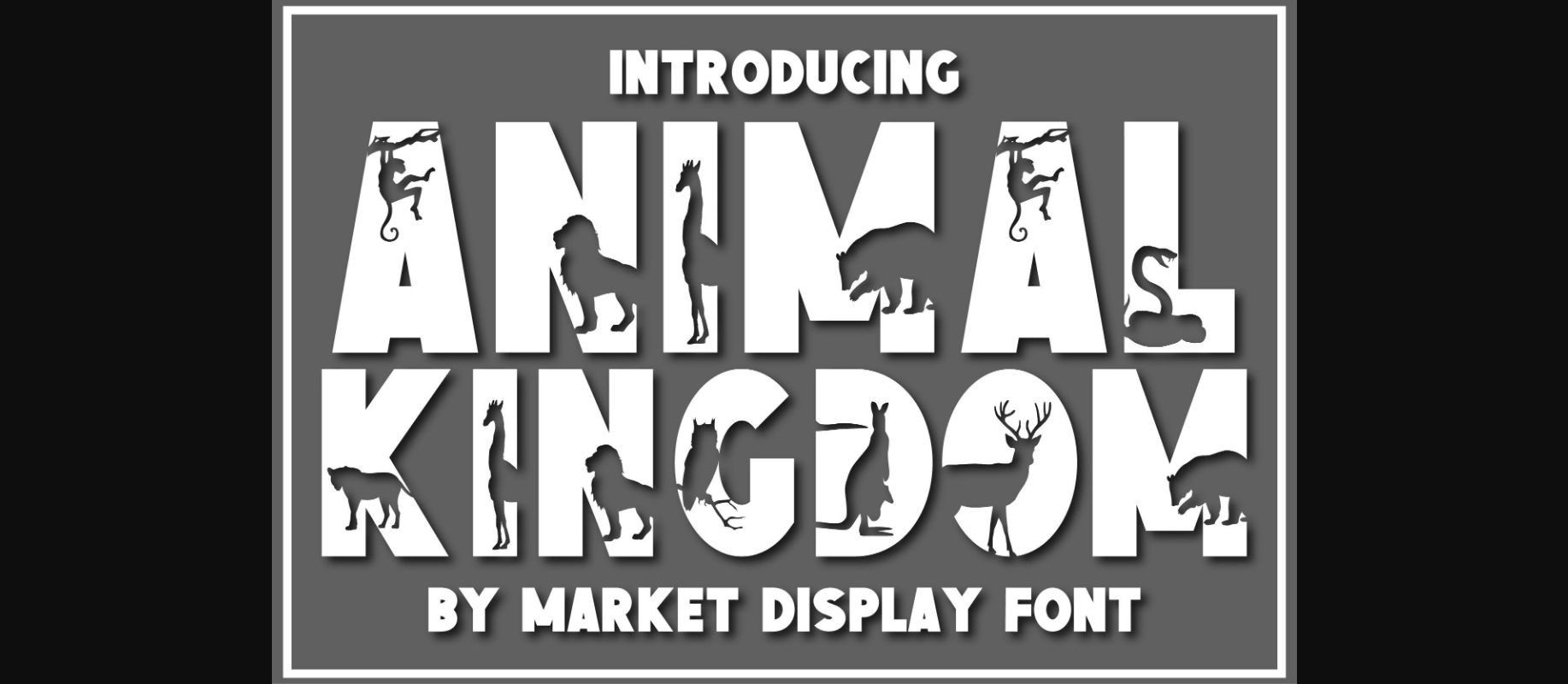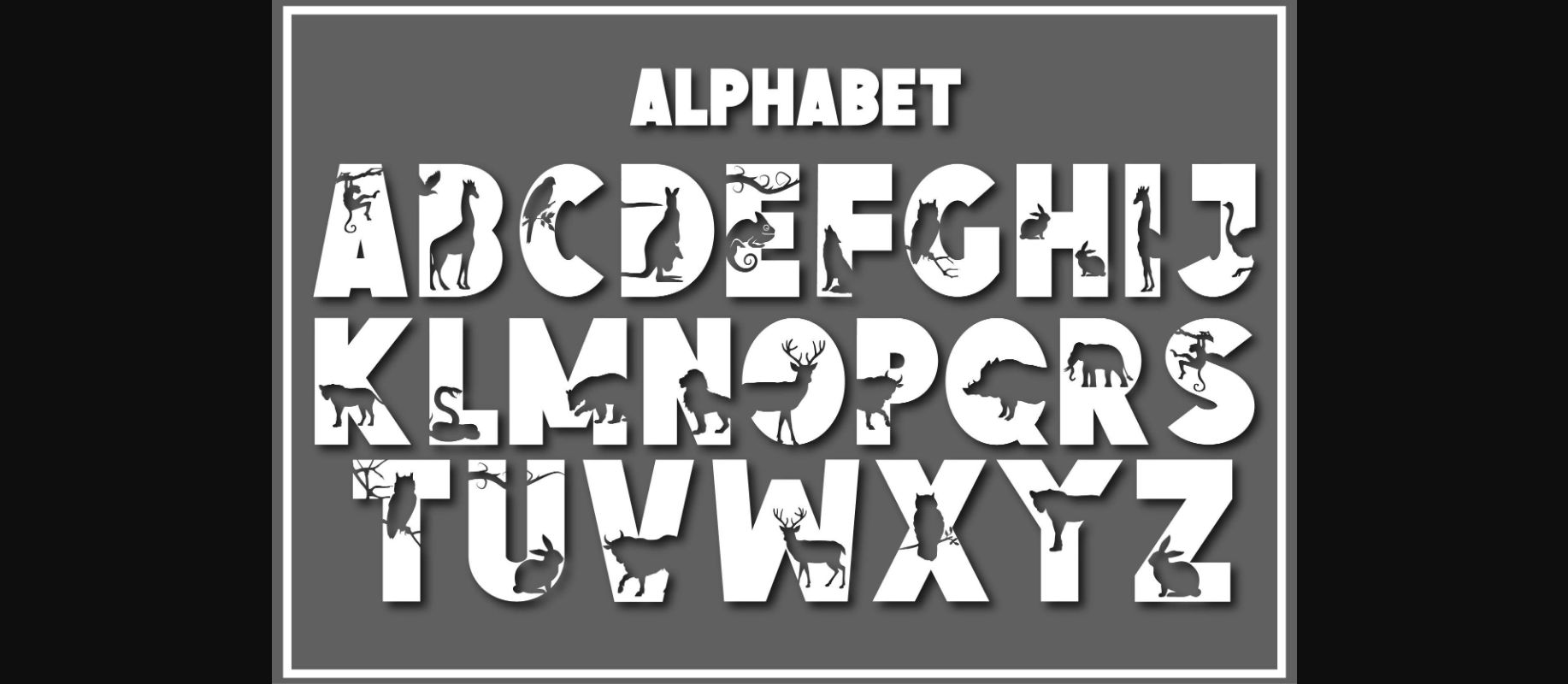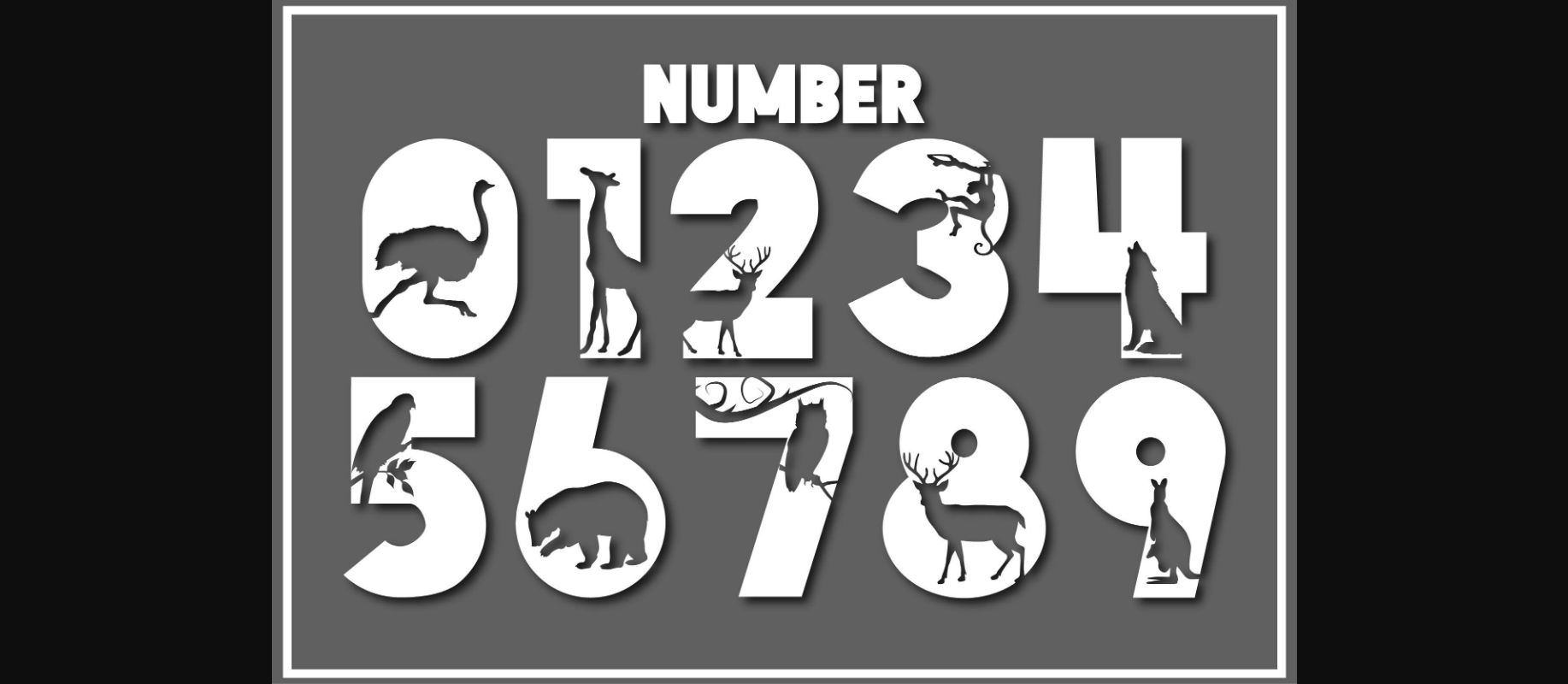
Animal Kingdom celebrates nature and wildlife in all its forms. This gorgeous animal-themed decorative font will turn any craft idea into a true standout! It works great for all your nature-themed projects.